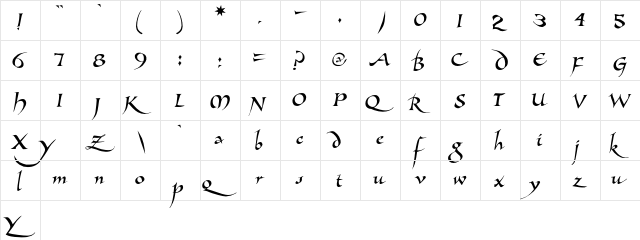
Allembert Regular
Design Context for Allembert Typeface
Allembert takes a measured approach to typography — its balanced proportions and neutral character make it a reliable workhorse for both digital and print work.